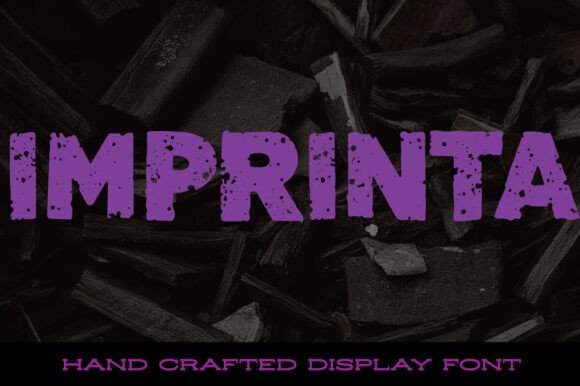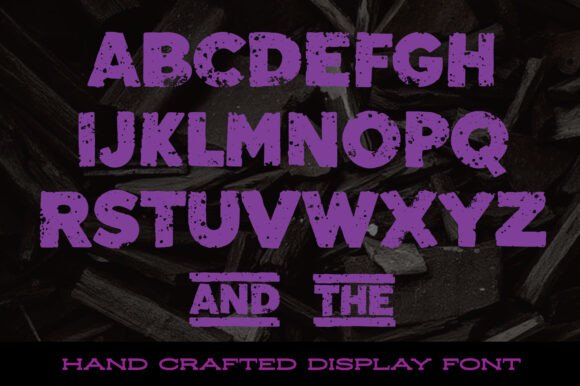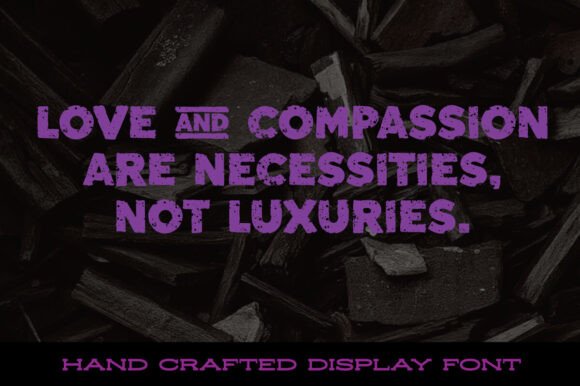
Imprinta Font: A Bold, Distressed Display Font for Authentic Vintage Designs
About the Imprinta Font
Let us introduce you to Imprinta Font, where timeless design meets modern craftsmanship. Imprinta is a bold and distressed rubber stamp-style font that captures the rough, imperfect nature of ink pressed onto paper. The name comes from “imprint,” emphasizing its rugged and tactile quality. It has a strong, blocky presence with rough edges, ink bleed, and slight misalignment, creating an authentic stamped effect. Some areas of the letters appear slightly faded, mimicking the look of a worn-out rubber stamp. The overall feel is vintage and industrial, making it perfect for retro posters, packaging, and branding that needs a handmade yet authoritative aesthetic. Its versatility makes it ideal for headlines, warning labels, and any design that benefits from a bold, imperfectly stamped impression.
Imprinta Font Usage Examples
Imprinta Font Example